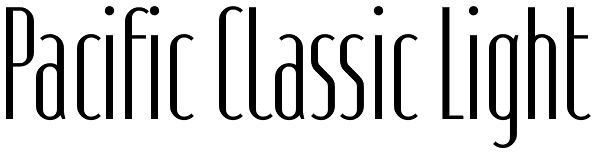
Pacific Classic
The Pacific Standard Bold was originally designed as a - capital only - poster typeface for a poster for the 30th International Film Festival Rotterdam in 2001 in the Netherlands. Theme of the festival was 'ports'. The design is inspired by the...
Pacific Classic Light
Pacific Classic Bold